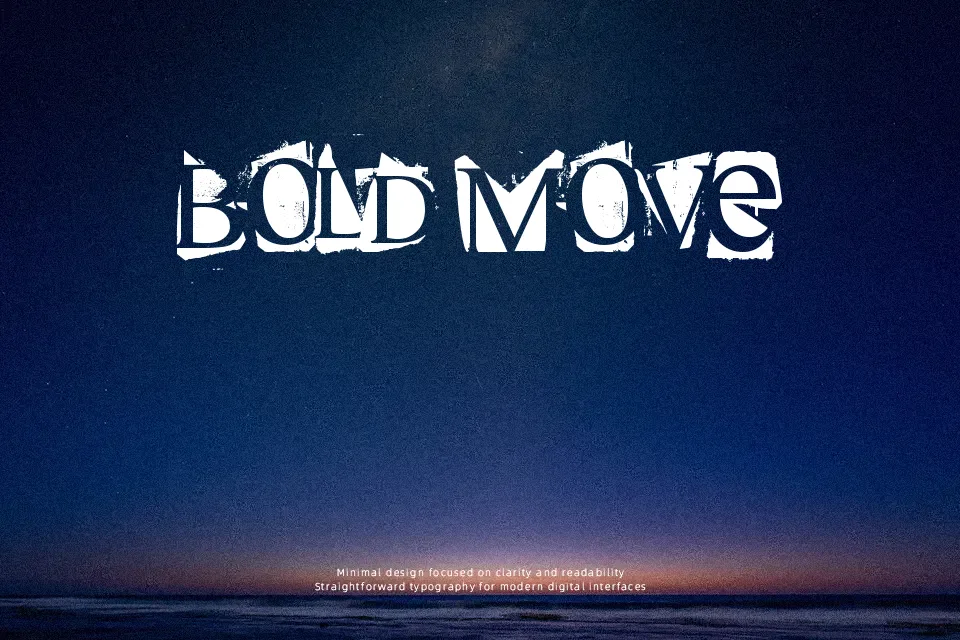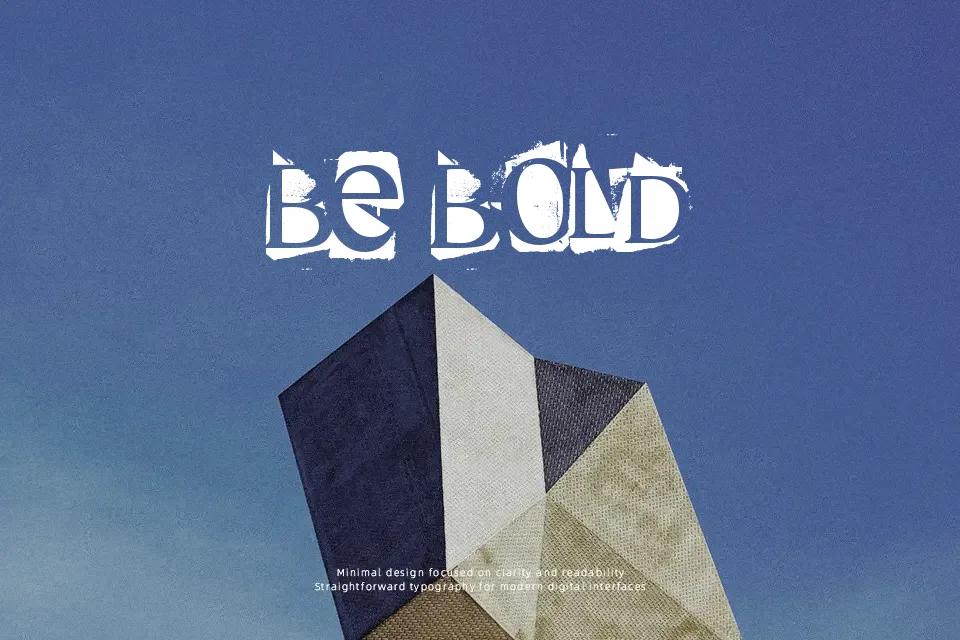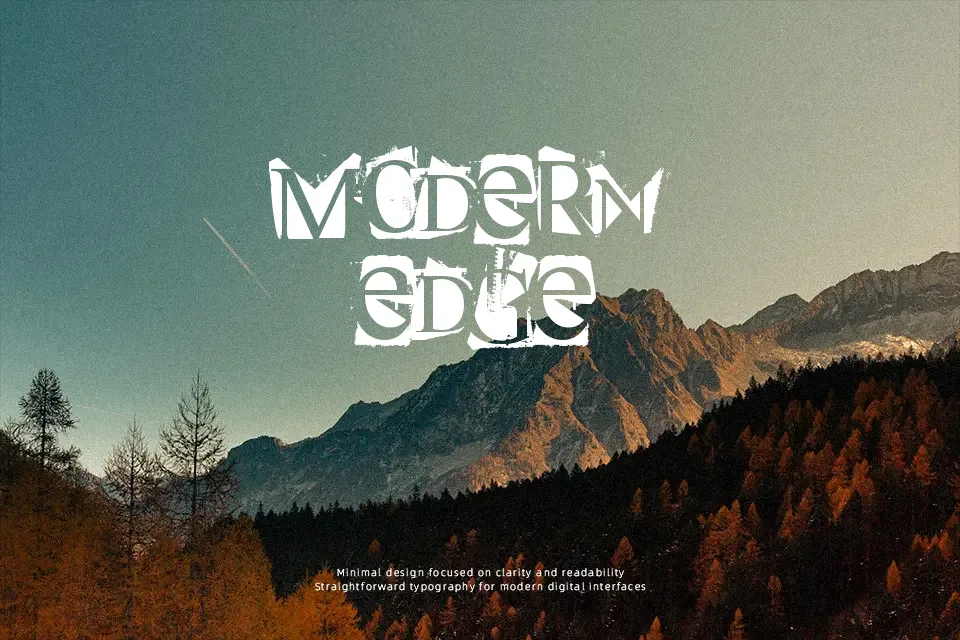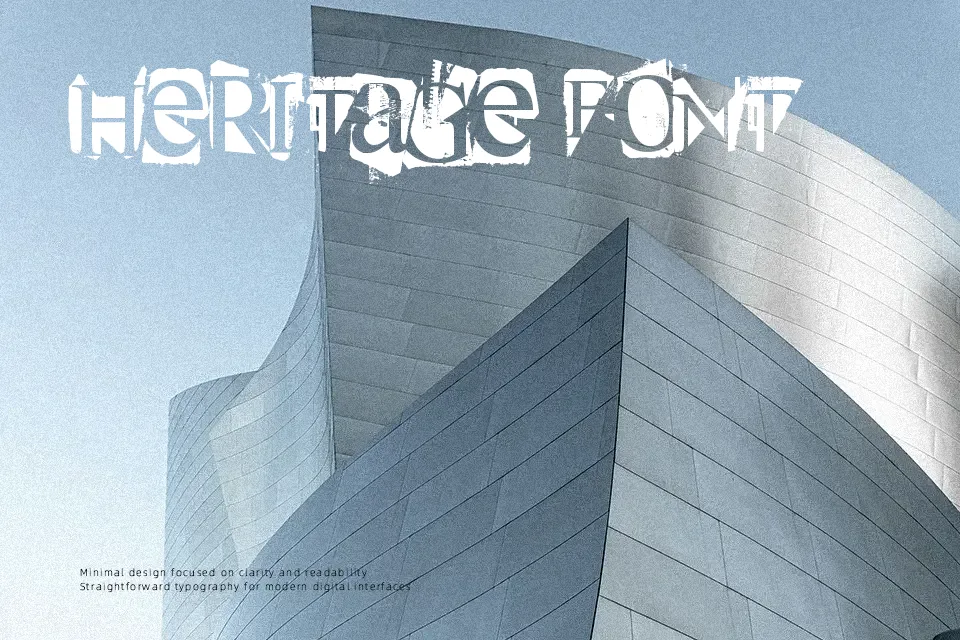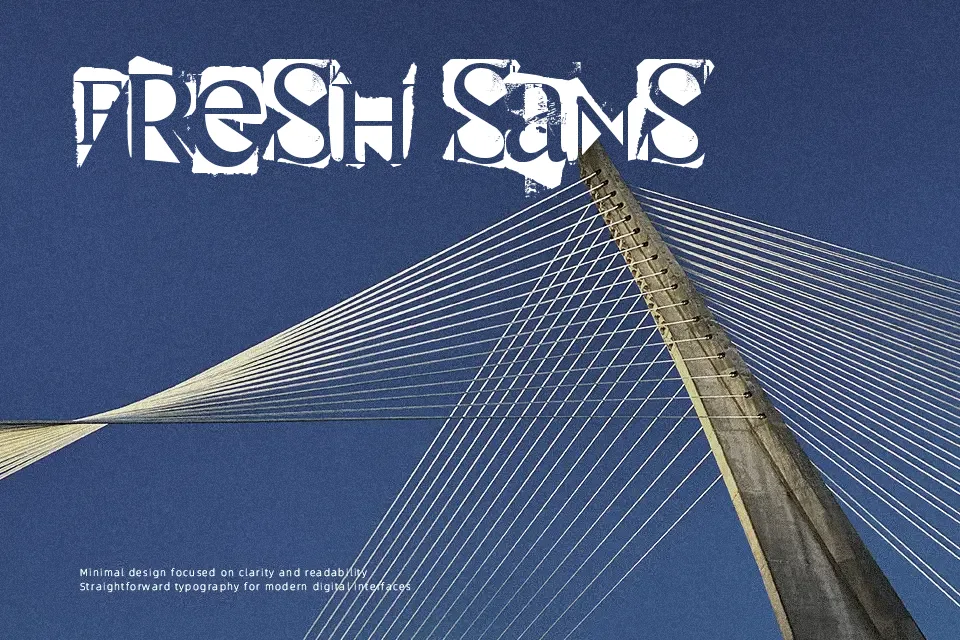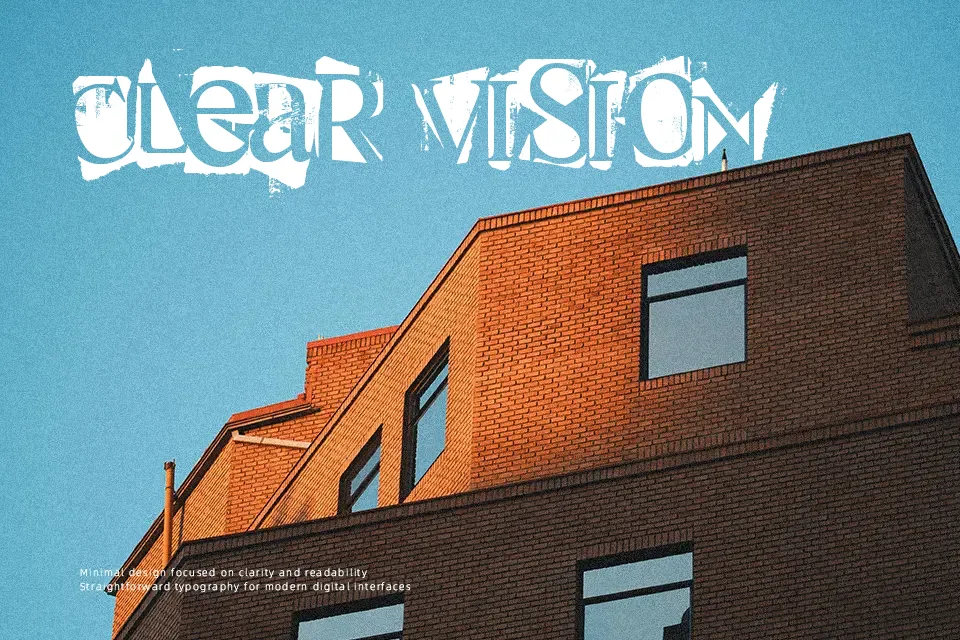
Super Danger Font
Constructed from jagged contours and eroded silhouette fragments, Super Danger Font delivers an aggressive aesthetic rooted in collage art. Each glyph presents distinct stroke thickness variations, asymmetrical proportions, and intentionally uneven baselines that mimic mixed-media cutout lettering. Spacing between characters remains tight and erratic, producing a dense visual rhythm suited for punk gig flyers, extreme sports branding, and horror video game titles. The heavy distressing gives headline text immediate visual weight across large print layouts. However, the chaotic character shapes severely hinder legibility in smaller captions and dense editorial paragraphs. This typeface remains an effective stylistic choice for punchy display headers rather than continuous reading.
Best For: punk rock concert posters, streetwear apparel graphics, horror game titles, grunge product packaging
Not Ideal For: long paragraph text, mobile user interface body copy, corporate annual reports, dense book typography
Perfect for fashion, gaming, and headline, with a bold and decorative style.